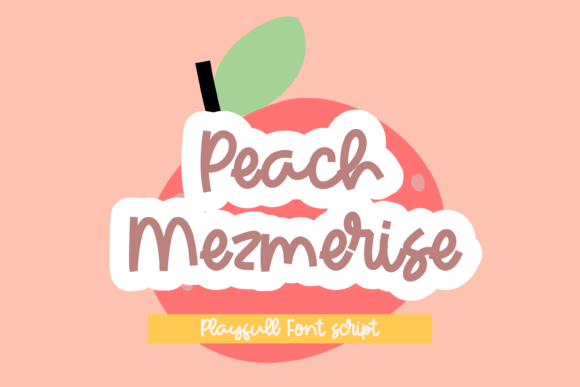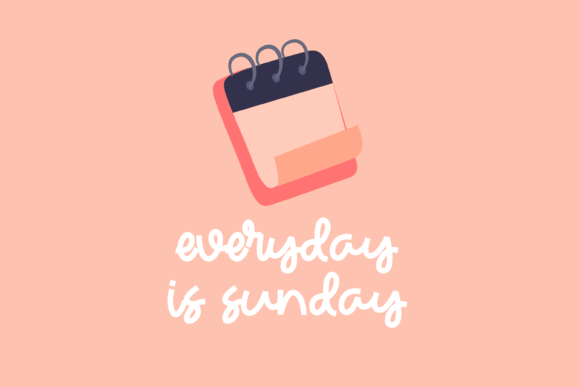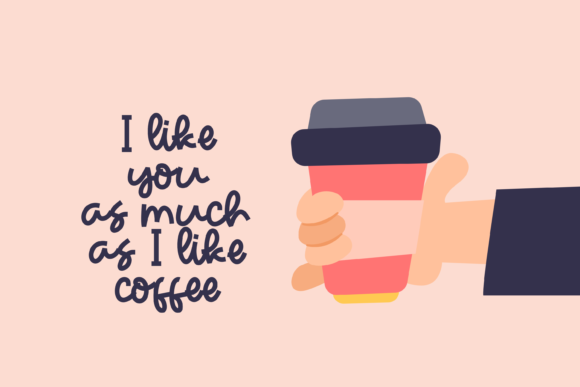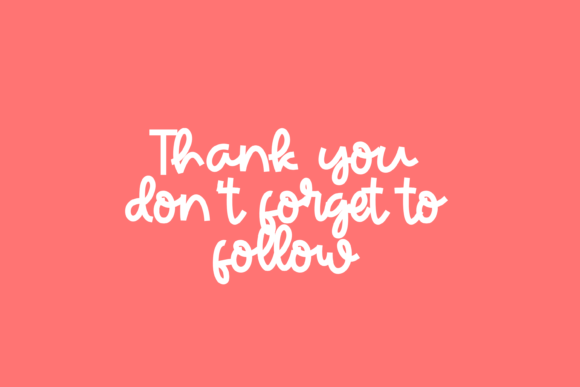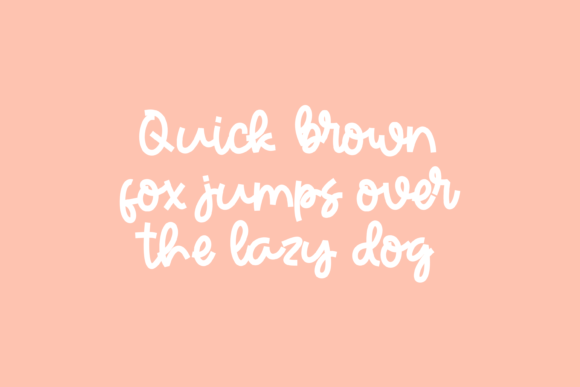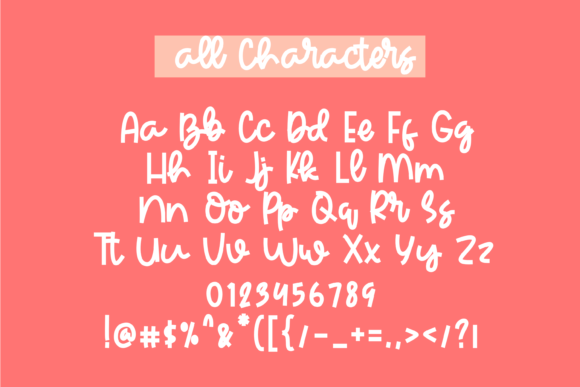
Peach Mezmerise Font
About Peach Mezmerise Font
Peach Mezmerise is a delicate and playful handwritten script. Its graceful nature makes this font perfectly suitable for a variety of creative projects. The sky is the limit!